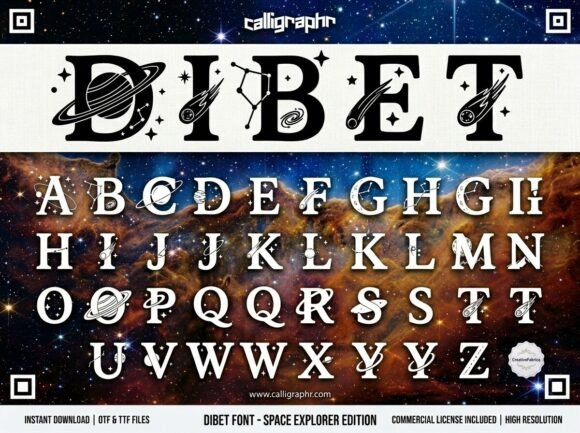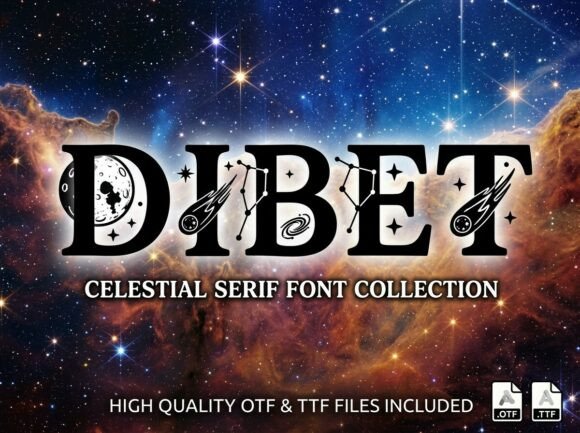
Introduction to Dibet Font Font
Fonts play a crucial role in design, and the Dibet Font font is a typeface that brings both character and versatility to any project. Whether you’re working on a branding project, a website, or a print design, the Dibet Font font offers a unique style that can elevate your work.
Explore the far reaches of the galaxy with Dibet, a stunning display typeface that captures a “cosmic-and-interstellar” soul.
This font features bold, high-contrast serif letterforms integrated with iconic celestial elements, including ringed planets, soaring comets, star constellations, and spiral galaxies With its clean silhouettes and rhythmic astronomical storytelling, Dibet is the premier choice for independent sci-fi book titles, planetarium branding, space-themed apparel logos, and high-impact “extra-terrestrial” social media headers.
Key Features of Dibet Font Font
Why Choose Dibet Font Font?
The Dibet Font font is more than just a typeface – it’s a design tool that helps you communicate your message with style and clarity. Its unique character set and versatile design make it suitable for a wide range of applications, from elegant invitations to bold headlines.
With its carefully crafted letterforms and balanced proportions, the Dibet Font font ensures readability and visual appeal across all mediums.
What makes Dibet Font font special?
The Dibet Font font stands out with its unique design, exceptional readability, and versatility across various design applications.